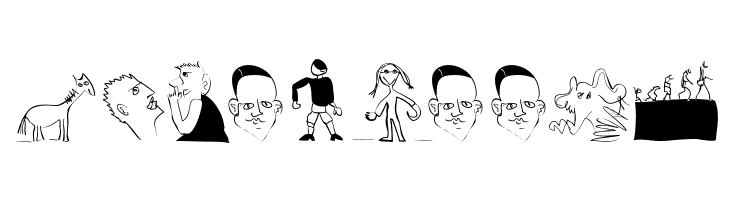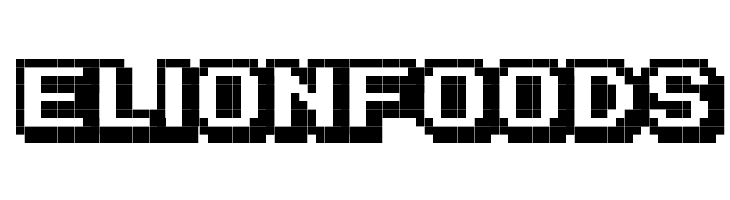
• Karlas704
A collection of hand-drawn, whimsical faces and abstract shapes.
• KarlasAndManfreds
Hand-drawn cartoon font with unique character illustrations.
• KarlasMiszellen
A bold, abstract font with a graffiti-like, hand-drawn appearance.
• KarlasNrThree
A whimsical, decorative font with cartoon-like illustrations for each character.
• KarlasNrThreeSeven
Abstract, playful dingbat font with hand-drawn faces and objects.
• Karma Future
• Karmatic Arcade
A bold, pixelated font inspired by classic arcade games.
• Keetano Gaijin
• Keetano Katana Bold
• KeetanoKatakana Regular